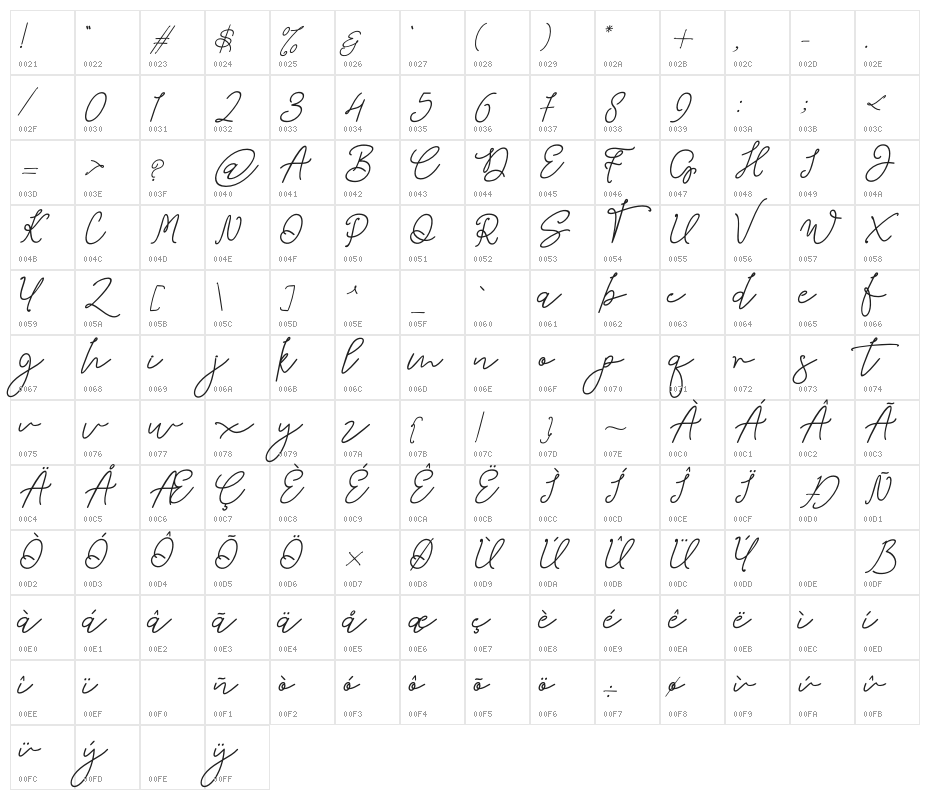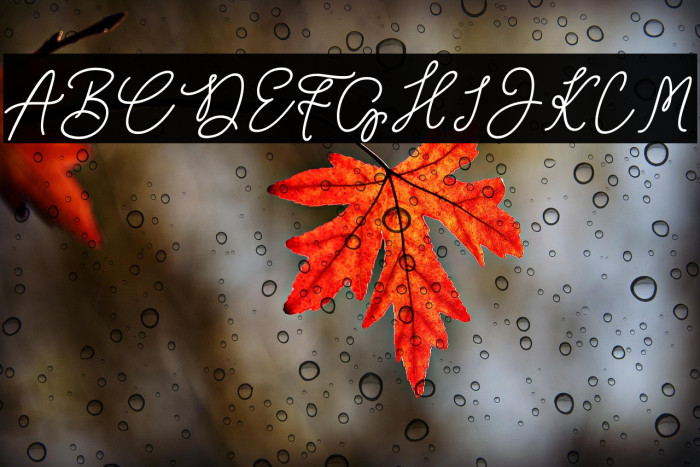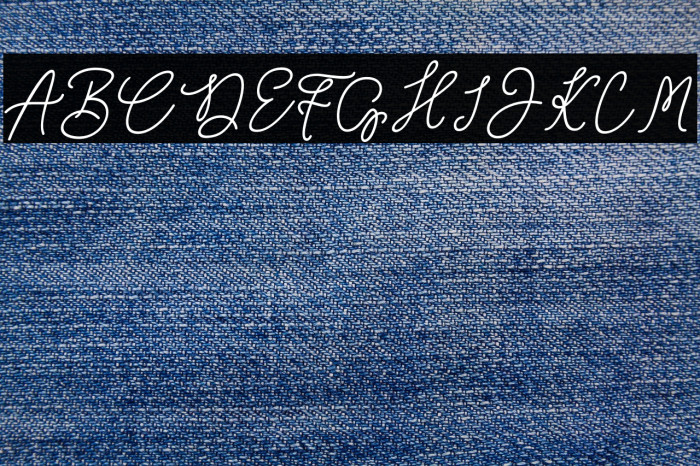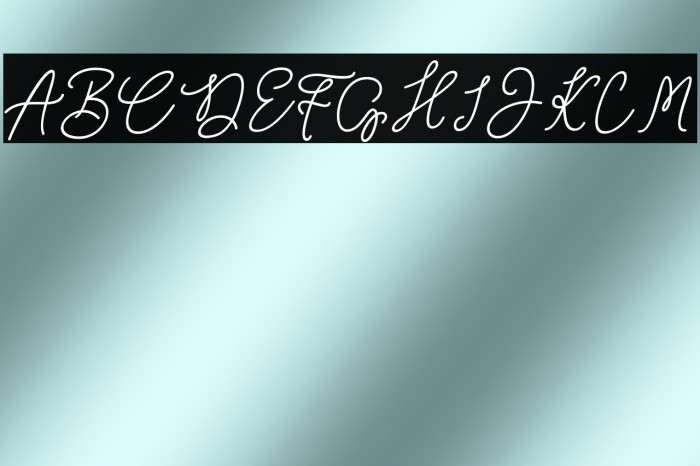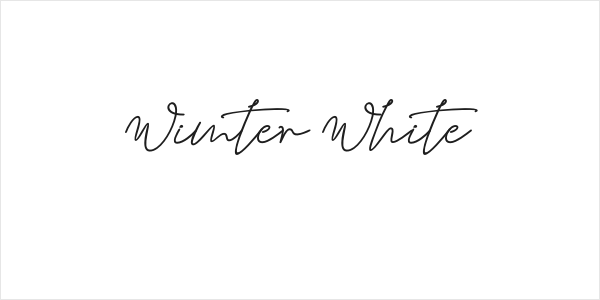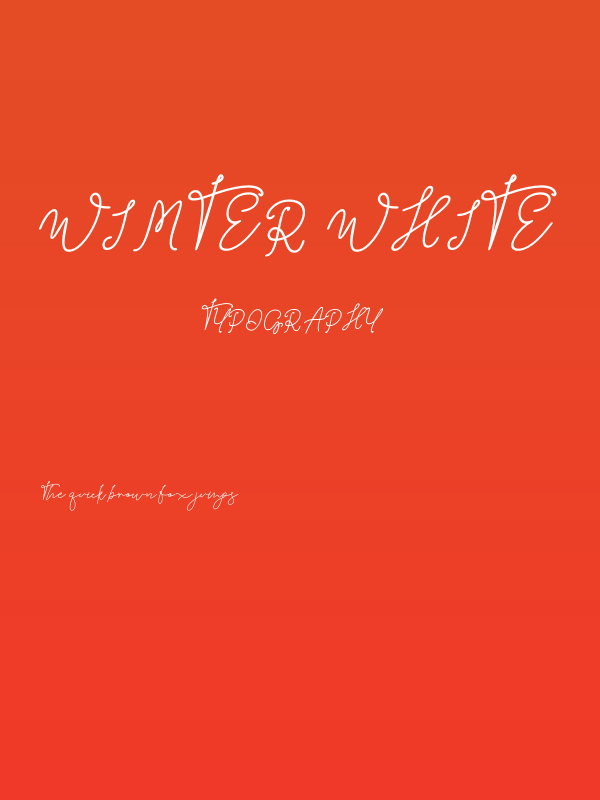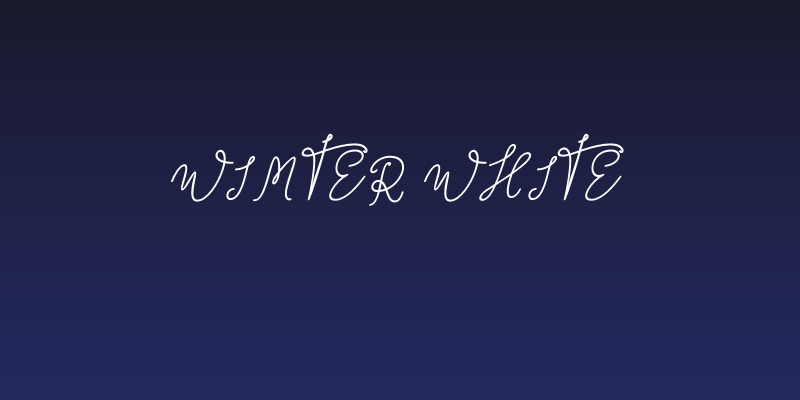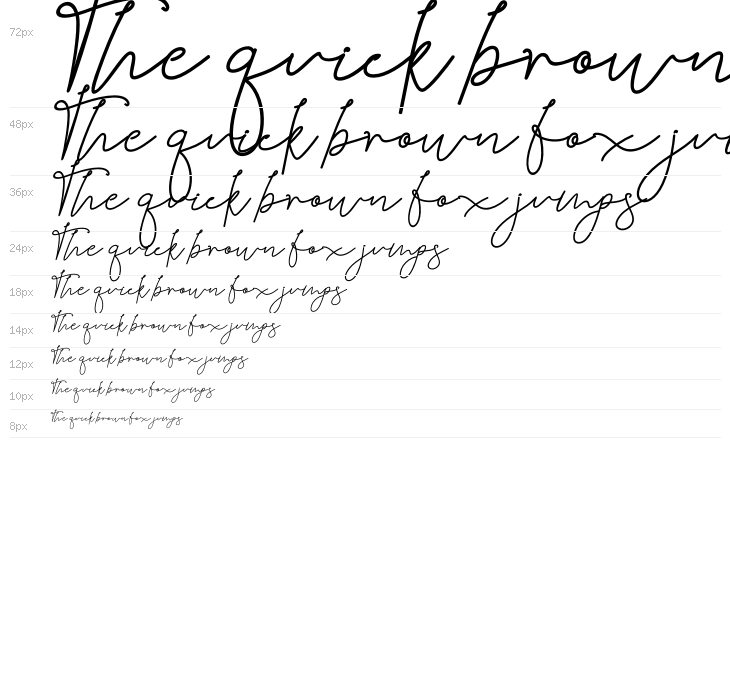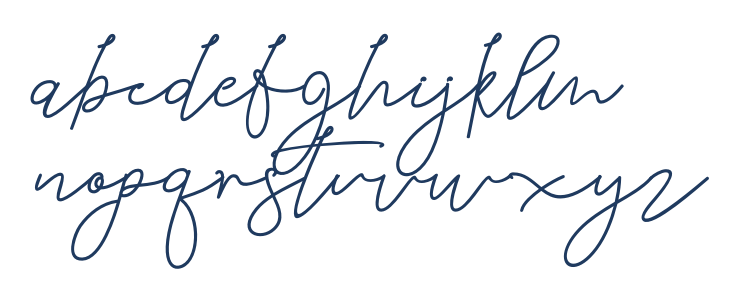
Wimter White Font
Wimter White Description
This font features an elegant and flowing script style, characterized by its smooth, cursive letterforms that mimic the fluidity of handwriting. The uppercase letters are distinct with graceful loops and curves, while the lowercase letters maintain a consistent slant and connected strokes, enhancing the handwritten feel. The numerals and special characters are crafted with the same attention to detail, ensuring a cohesive look across all glyphs. This font exudes a sense of sophistication and charm, making it ideal for projects that require a personal touch.
| Overall Style | Elegant, Handwritten |
| Proposed Projects | Ideal for wedding invitations, greeting cards, personal branding, and elegant packaging designs. |